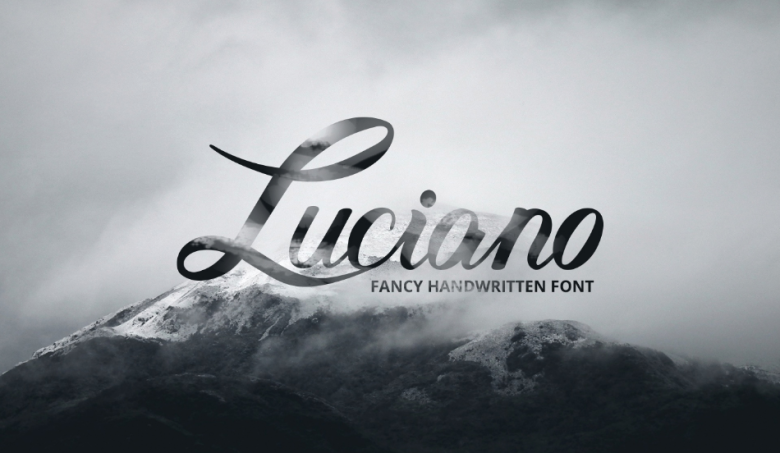
Luciano Font
Today www.allfreefonts.co continue to introduce to you a fancy handwriting font. Luciano Font designed and shared by Yana Bereziner. Luciano is a Handwriting font, designed very delicate, with modified contours smooth, you can use it for design purposes.